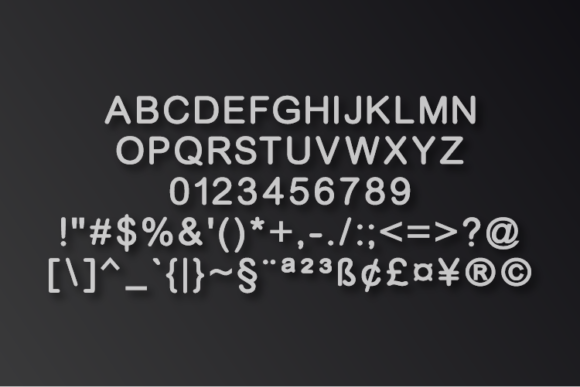
Introduction to Harvely Font
Do you remember the moment when you stumbled upon the perfect font for your creative project? For designers, it’s a feeling that’s hard to describe – a rush of excitement, a sense of relief, and a boost of confidence that everything is going to come together just right. That’s exactly what happens when you discover the Harvely Font.
Harvely Font is a modern and elegant sans serif font that seamlessly blends traditional influences into a contemporary aesthetic. Its well-balanced Latin details contain distinctive contrasts that make it a valuable resource for designers. Whether you’re working on a high-quality design project or simply looking for a free download to add some flair to your work, Harvely Font is an excellent choice.
With its transparent background and high-quality design, Harvely Font is a design resource that can elevate your creative project to the next level. Its versatility and unique style make it a must-have for any designer looking to add a touch of sophistication and elegance to their work.
Key Features of Harvely Font
- Includes 200+ glyphs, supporting Latin, Cyrillic, and Greek alphabets.
- Perfect for designers, artists, and writers seeking a unique design resource.
Honest Review: Harvely Font
As a designer, I’ve had the pleasure of working with a variety of fonts for my creative projects. The Harvely Font is one of the latest additions to my design resource library, and I must say it’s been a delightful experience working with it.
Here are some things that work well with the Harvely Font:
- ✨ High-quality design: The font is crisp and clear, making it perfect for print or digital projects.
- ✨ Transparent background: This feature allows for seamless integration with other design elements, making it a great resource for designers.
- ⚠️ Limited character set: The font only includes a limited set of characters, which may not be suitable for more complex projects.
- ⚠️ Not ideal for large-scale projects: While the font is great for smaller projects, it may not be the best choice for larger, more complex designs.
Overall, I’m impressed with the Harvely Font. It’s a great addition to any designer’s library, and I would definitely recommend it for smaller creative projects or personal use.
Using Harvely Font in Design Projects
The Harvely Font is a versatile design resource that can be used in various creative projects. It’s perfect for those looking for a high-quality font with a transparent background, making it ideal for overlaying on images or videos.
Getting the Most Out of Harvely Font
To get the most out of the Harvely Font, experiment with different font sizes, colors, and styles to create visually appealing designs. You can also pair it with other design resources to create a unique and cohesive look.
The Harvely Font is commonly used in social media graphics, presentations, and digital marketing materials. It’s also a popular choice for creating logos, typography, and other design elements.